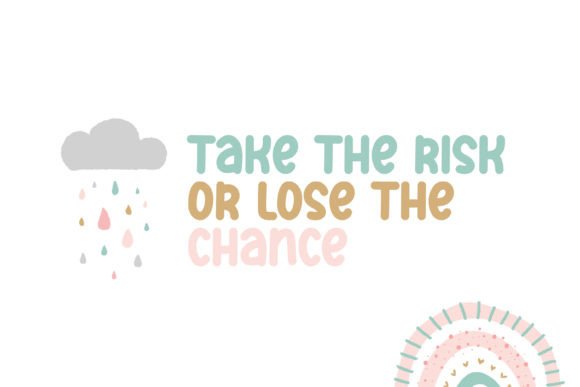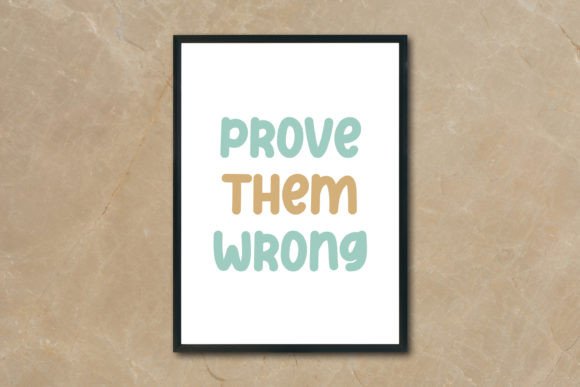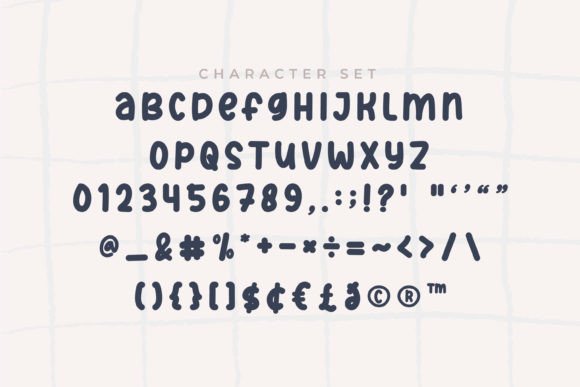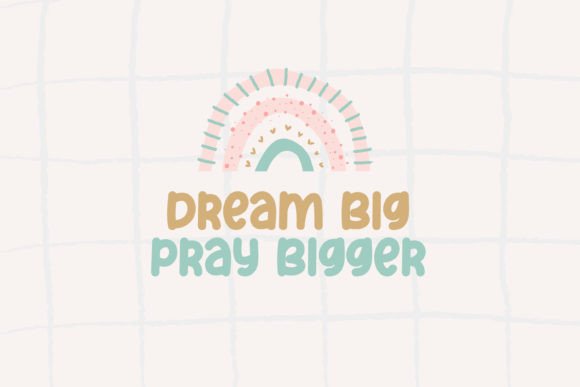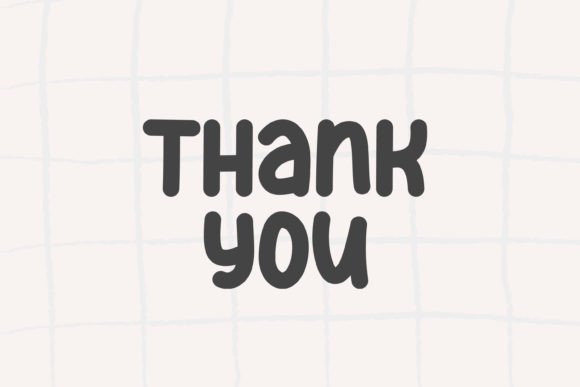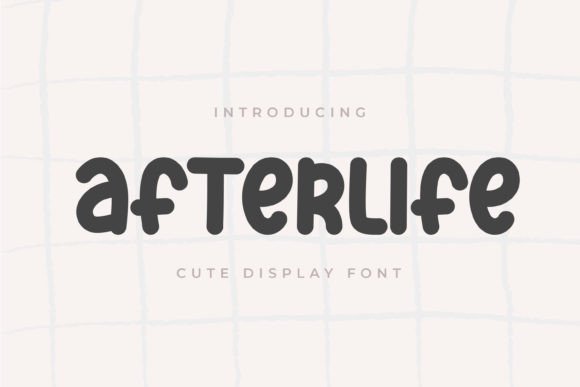
Introducing Afterlife Font: The Ultimate Choice for Playful Designs
Are you a designer, crafter, or educator looking for a font that embodies playfulness and authenticity? Look no further than the Afterlife Font! This cute and colorful display font is perfect for any children’s activity or school project, and is sure to bring your designs to life.
What is Afterlife Font?
Afterlife Font is a unique and eye-catching display font that is designed to add a touch of playfulness and fun to your designs. With its chunky lettered style, this font is sure to grab attention and make your projects stand out. Whether you’re creating materials for a children’s party, a school project, or a craft activity, Afterlife Font is the perfect choice.
Key Features of Afterlife Font
• Cute and Colorful: Afterlife Font features bright and vibrant colors that are sure to appeal to kids and adults alike.
• Playful and Authentic: This font embodies a sense of playfulness and authenticity, making it perfect for designs that require a fun and youthful touch.
• Chunky Lettered Style: The chunky lettered style of Afterlife Font makes it easy to read and adds a tactile feel to your designs.
• Perfect for Kids’ Activities: Whether you’re creating materials for a children’s party, a school project, or a craft activity, Afterlife Font is the perfect choice.
Why Choose Afterlife Font?
So why choose Afterlife Font for your designs? Here are just a few reasons:
• Adds a Touch of Personality: Afterlife Font adds a touch of personality and whimsy to your designs, making them more engaging and fun.
• Easy to Read: The chunky lettered style of Afterlife Font makes it easy to read, even for young children.
• Versatile: Afterlife Font can be used for a wide range of projects, from children’s activities and school projects to craft projects and more.
• Unique and Eye-Catching: Afterlife Font is a unique and eye-catching font that is sure to grab attention and make your designs stand out.
How to Use Afterlife Font
• Pair with Other Fonts: Pair Afterlife Font with other fonts to create a unique and interesting contrast.
• Use in Headings and Titles: Use Afterlife Font in headings and titles to add a touch of personality and whimsy to your designs.
• Add to Your Designs: Add Afterlife Font to your designs to make them more engaging and fun.
In conclusion, Afterlife Font is a cute and colorful display font that is perfect for any children’s activity or school project. With its chunky lettered style and playful authenticity, this font is sure to bring your designs to life. Whether you’re a designer, crafter, or educator, Afterlife Font is a great choice for adding a touch of personality and whimsy to your projects.
Get Creative with Afterlife Font!